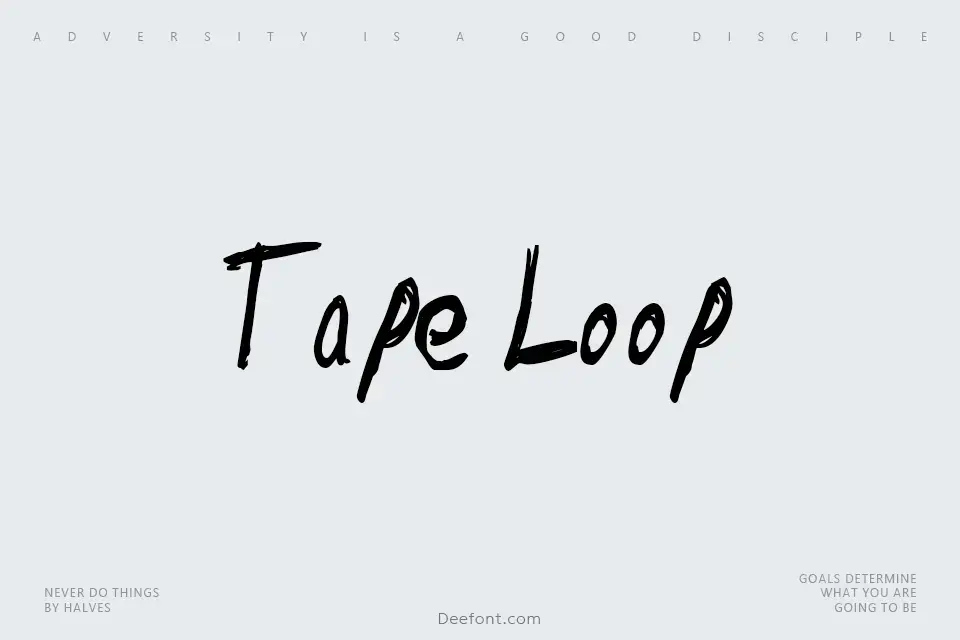
Tape Loop Font
Tape Loop is a raw, unpolished script font that captures the chaotic energy of analog distortion. With its jagged edges and erratic strokes, this typeface embodies a “trash” aesthetic reminiscent of tangled audio tape or hurried graffiti. It is an excellent choice for grunge-inspired music posters, underground zines, urban streetwear branding, and experimental art projects requiring a distressed, lo-fi vibe.